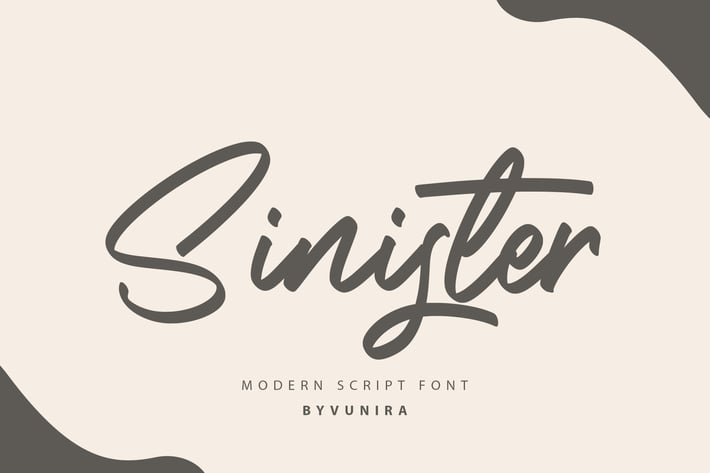
Sinister | Modern Script Font
Sinister | Modern Script Font with a calligraphy style, So beautiful on invitation like greeting cards, branding materials, business cards, quotes, posters, and more!